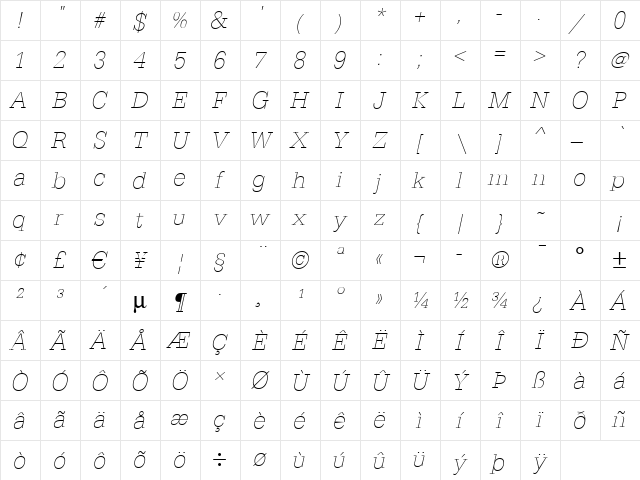
EgyptienneStd-Xlight Italic
EgyptienneStd-Xlight Family
Complete EgyptienneStd-Xlight Italic glyph index. Displaying only characters natively supported by EgyptienneStd-Xlight Italic font.
Design Context for EgyptienneStd-Xlight
EgyptienneStd-Xlight is a composed and adaptable typeface that performs quietly and consistently across a wide range of design contexts. The slanted form adds forward momentum and visual energy. Its slender proportions lend an understated elegance to any composition.